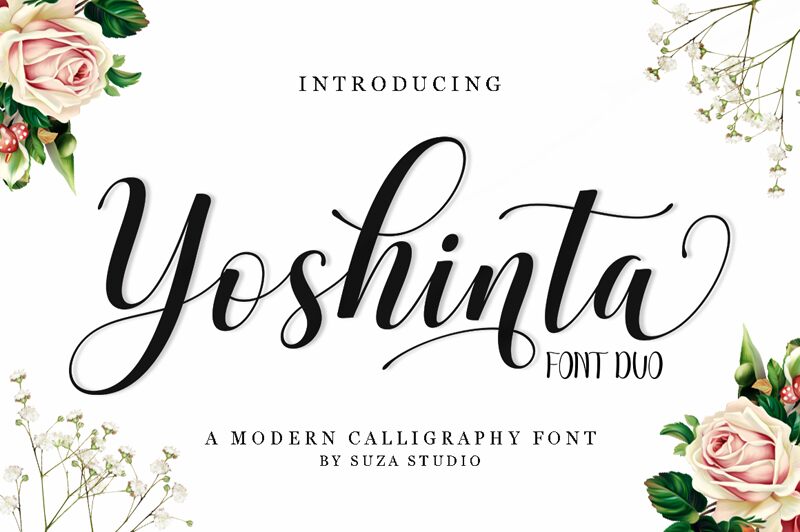
Yoshinta Script by Zikrillah is a stunning calligraphy font that adds a touch of elegance to any project. Its semi-light weight makes it perfect for invitations, greeting cards, and wedding stationery. This font's fluid strokes and graceful curves are sure to captivate your audience's attention, whether you're designing a logo or creating a social media post. Yoshinta Script is also versatile enough to be used for branding projects or as a display font on websites. With its intricate details and sophisticated style, Yoshinta Script is the perfect choice for anyone looking to elevate their designs with a touch of class.
Yoshinta Script